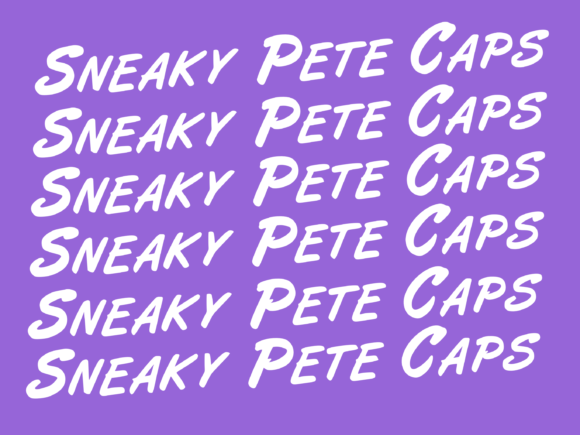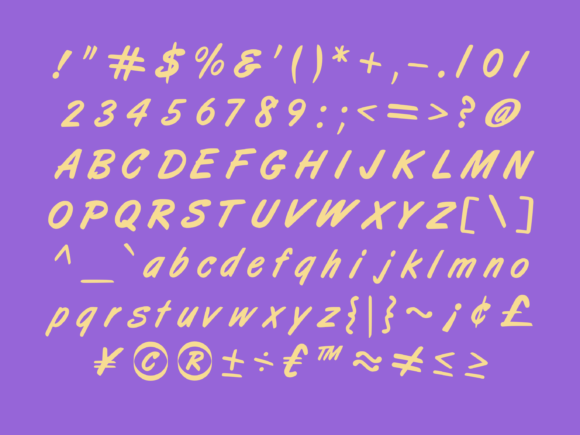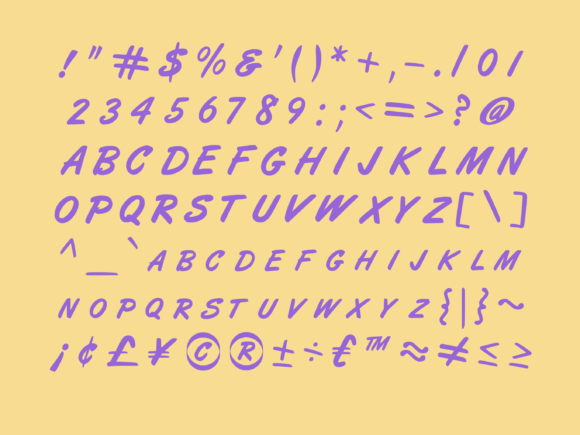
Sneaky Pete Font
About Sneaky Pete Font
“Sneaky Pete” is a handwritten marker font that stands out with its duo style. This unique typeface is a perfect blend of boldness and authenticity, making it an excellent choice for various design projects.
The charm of “Sneaky Pete” lies in its handwritten marker style. Each stroke of this font is carefully crafted to mimic the look and feel of writing with a marker. This gives your designs a personal touch, making them more engaging and relatable to your audience.
What sets “Sneaky Pete” apart is its duo style. This means that it comes in two variations, allowing you to mix and match according to your design needs. Whether you’re working on a logo, a poster, or a website, “Sneaky Pete” gives you the flexibility to create designs that are truly unique.
In the world of typography, where trends come and go, “Sneaky Pete” stands the test of time. Its bold yet authentic style makes it a versatile font that can be used in a wide range of design contexts. From modern designs to vintage aesthetics, “Sneaky Pete” can add a touch of sophistication to any project.
In conclusion, “Sneaky Pete” is more than just a font. It’s a design tool that can help you create stunning and impactful designs. With its handwritten marker style and duo variations, it’s sure to add a unique spark to your design projects.